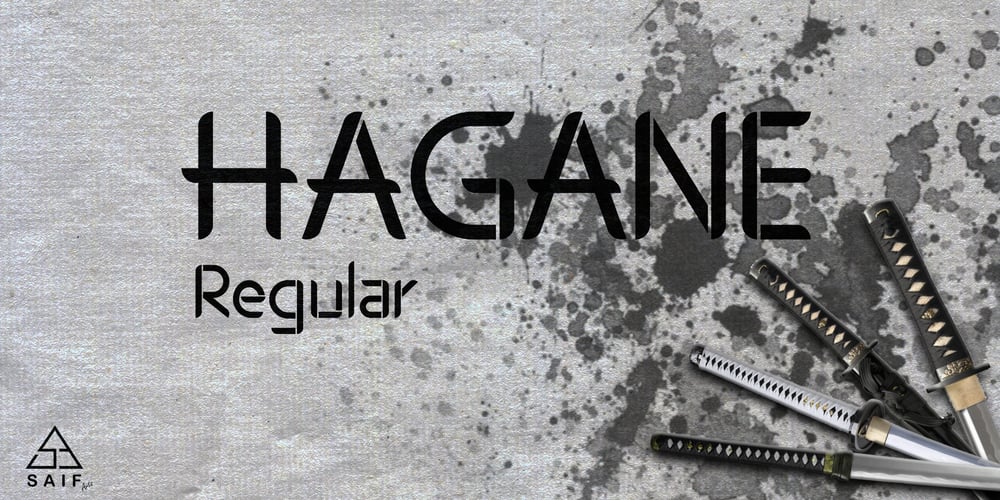
Hagane Font Family was designed by Imam Ahamed S and published by Saiffont. Hagane contains 1 styles and family package options. This typeface was created during the process of logo making. Simple and stylish design which can be used in pretty much any projects, especially in action themed projects.The sharp terminals in this typeface resemble the tip of “Katana”, a Japanese weapon. Hagane means “steel” in Japanese, which is used to make Katana.